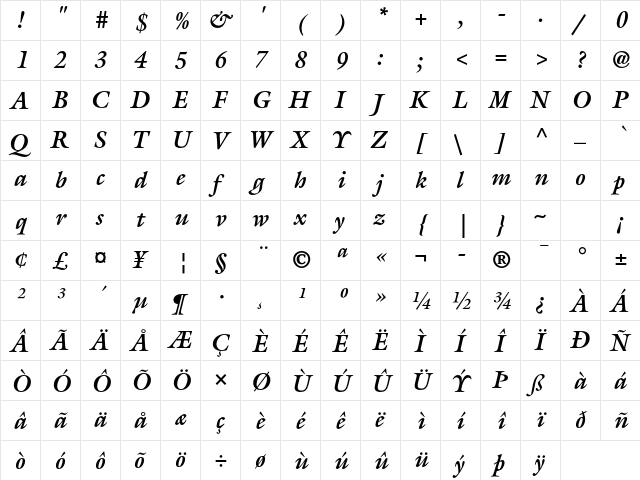
ITC Galliard Std Bold Italic Font Preview
| Designer | Matthew Carter |
Design Context for ITC Galliard Std Typeface
ITC Galliard Std takes a measured approach to typography — its balanced proportions and neutral character make it a reliable workhorse for both digital and print work. The dynamic lean of this cut emphasises speed and emphasis in any layout. The heavy weight commands attention and anchors typographic hierarchies.
Pro Tip: Try ITC Galliard Std for annotation and caption copy alongside an upright companion — the contrast in angle creates a dynamic but ordered typographic system.